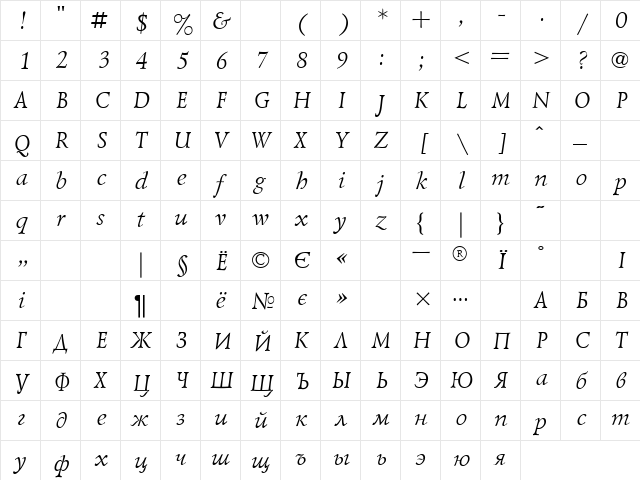
UkrainianGoudyOld Italic Font Preview
UkrainianGoudyOld Italic
Design Context for UkrainianGoudyOld Typeface
UkrainianGoudyOld is a composed and adaptable typeface that performs quietly and consistently across a wide range of design contexts. The dynamic lean of this cut emphasises speed and emphasis in any layout.
Pro Tip: Use UkrainianGoudyOld for emphasis, pull quotes, and subheadings where its slanted energy can add rhythm to the layout.